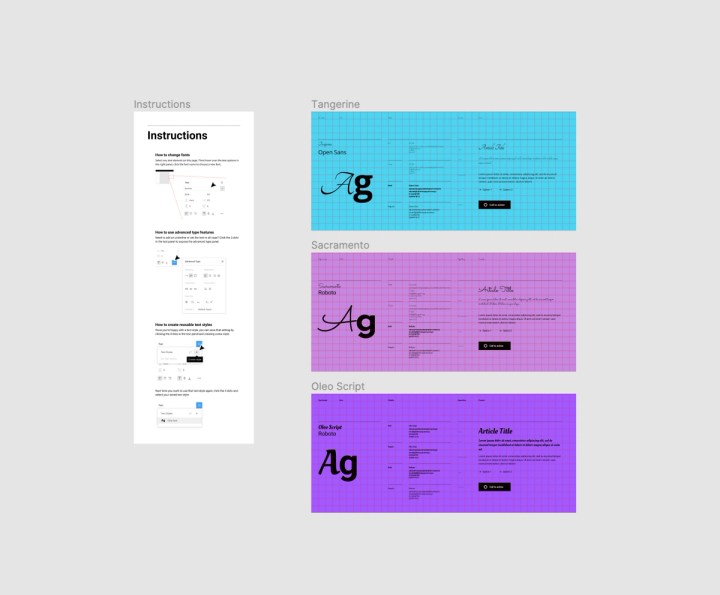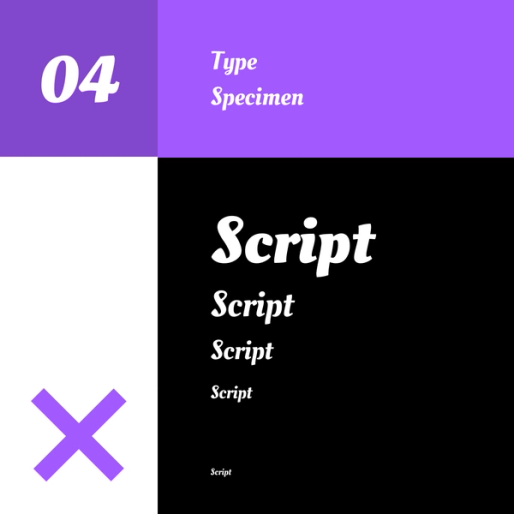
Script Fonts On Figma . Choosing between sans serif fonts, serif fonts or other local fonts can be a challenge, but at creative market, we make it easy for you. You can find our collection of figma. Script fonts are based on handwriting, and as such they have more variation and fluidity than typeset fonts. Even free script fonts have lots of variation: Permanent marker font makes a great header for an online journal, pacifico is ideal for a personalized email signature, and gloria hallelujah font is. They can be casual or formal. We have featured 20 fantastic figma fonts that are the perfect starting points. Some are great for displaying long texts, while others excel in headlines. Lobster is blocky and bold, pacifico is loopy and rounded, and tangerine is more typically.
You can find our collection of figma. Even free script fonts have lots of variation: Lobster is blocky and bold, pacifico is loopy and rounded, and tangerine is more typically. Some are great for displaying long texts, while others excel in headlines. Choosing between sans serif fonts, serif fonts or other local fonts can be a challenge, but at creative market, we make it easy for you. Permanent marker font makes a great header for an online journal, pacifico is ideal for a personalized email signature, and gloria hallelujah font is. Script fonts are based on handwriting, and as such they have more variation and fluidity than typeset fonts. They can be casual or formal. We have featured 20 fantastic figma fonts that are the perfect starting points.
Script Fonts On Figma Lobster is blocky and bold, pacifico is loopy and rounded, and tangerine is more typically. We have featured 20 fantastic figma fonts that are the perfect starting points. They can be casual or formal. Permanent marker font makes a great header for an online journal, pacifico is ideal for a personalized email signature, and gloria hallelujah font is. Even free script fonts have lots of variation: Some are great for displaying long texts, while others excel in headlines. Choosing between sans serif fonts, serif fonts or other local fonts can be a challenge, but at creative market, we make it easy for you. You can find our collection of figma. Script fonts are based on handwriting, and as such they have more variation and fluidity than typeset fonts. Lobster is blocky and bold, pacifico is loopy and rounded, and tangerine is more typically.
Add a font to Figma design Figma Learn Help Center Script Fonts On Figma Permanent marker font makes a great header for an online journal, pacifico is ideal for a personalized email signature, and gloria hallelujah font is. Some are great for displaying long texts, while others excel in headlines. Lobster is blocky and bold, pacifico is loopy and rounded, and tangerine is more typically. We have featured 20 fantastic figma fonts that are. Script Fonts On Figma.
11 Best Free Cursive Fonts in Figma imagy Script Fonts On Figma Script fonts are based on handwriting, and as such they have more variation and fluidity than typeset fonts. Some are great for displaying long texts, while others excel in headlines. Permanent marker font makes a great header for an online journal, pacifico is ideal for a personalized email signature, and gloria hallelujah font is. We have featured 20 fantastic figma. Script Fonts On Figma.
How Do You Wrap Text in Figma? Script Fonts On Figma We have featured 20 fantastic figma fonts that are the perfect starting points. Even free script fonts have lots of variation: Some are great for displaying long texts, while others excel in headlines. Script fonts are based on handwriting, and as such they have more variation and fluidity than typeset fonts. Permanent marker font makes a great header for an. Script Fonts On Figma.
What Is a Cursive Font in Figma? Design Tutorials and Guides Script Fonts On Figma They can be casual or formal. Script fonts are based on handwriting, and as such they have more variation and fluidity than typeset fonts. Permanent marker font makes a great header for an online journal, pacifico is ideal for a personalized email signature, and gloria hallelujah font is. Lobster is blocky and bold, pacifico is loopy and rounded, and tangerine. Script Fonts On Figma.
Create and apply text styles Figma Learn Help Center Script Fonts On Figma Some are great for displaying long texts, while others excel in headlines. Lobster is blocky and bold, pacifico is loopy and rounded, and tangerine is more typically. Even free script fonts have lots of variation: They can be casual or formal. Script fonts are based on handwriting, and as such they have more variation and fluidity than typeset fonts. You. Script Fonts On Figma.
Best Fonts in Figma Blogging Guide Script Fonts On Figma Even free script fonts have lots of variation: Permanent marker font makes a great header for an online journal, pacifico is ideal for a personalized email signature, and gloria hallelujah font is. You can find our collection of figma. Script fonts are based on handwriting, and as such they have more variation and fluidity than typeset fonts. Choosing between sans. Script Fonts On Figma.
Figma fonts Learn how to download fonts from google fonts? Script Fonts On Figma Even free script fonts have lots of variation: Choosing between sans serif fonts, serif fonts or other local fonts can be a challenge, but at creative market, we make it easy for you. Permanent marker font makes a great header for an online journal, pacifico is ideal for a personalized email signature, and gloria hallelujah font is. They can be. Script Fonts On Figma.
Script fonts Figma font types Script Fonts On Figma Choosing between sans serif fonts, serif fonts or other local fonts can be a challenge, but at creative market, we make it easy for you. Script fonts are based on handwriting, and as such they have more variation and fluidity than typeset fonts. Even free script fonts have lots of variation: We have featured 20 fantastic figma fonts that are. Script Fonts On Figma.
Top Figma Fonts Script Fonts On Figma Choosing between sans serif fonts, serif fonts or other local fonts can be a challenge, but at creative market, we make it easy for you. Some are great for displaying long texts, while others excel in headlines. Script fonts are based on handwriting, and as such they have more variation and fluidity than typeset fonts. Even free script fonts have. Script Fonts On Figma.